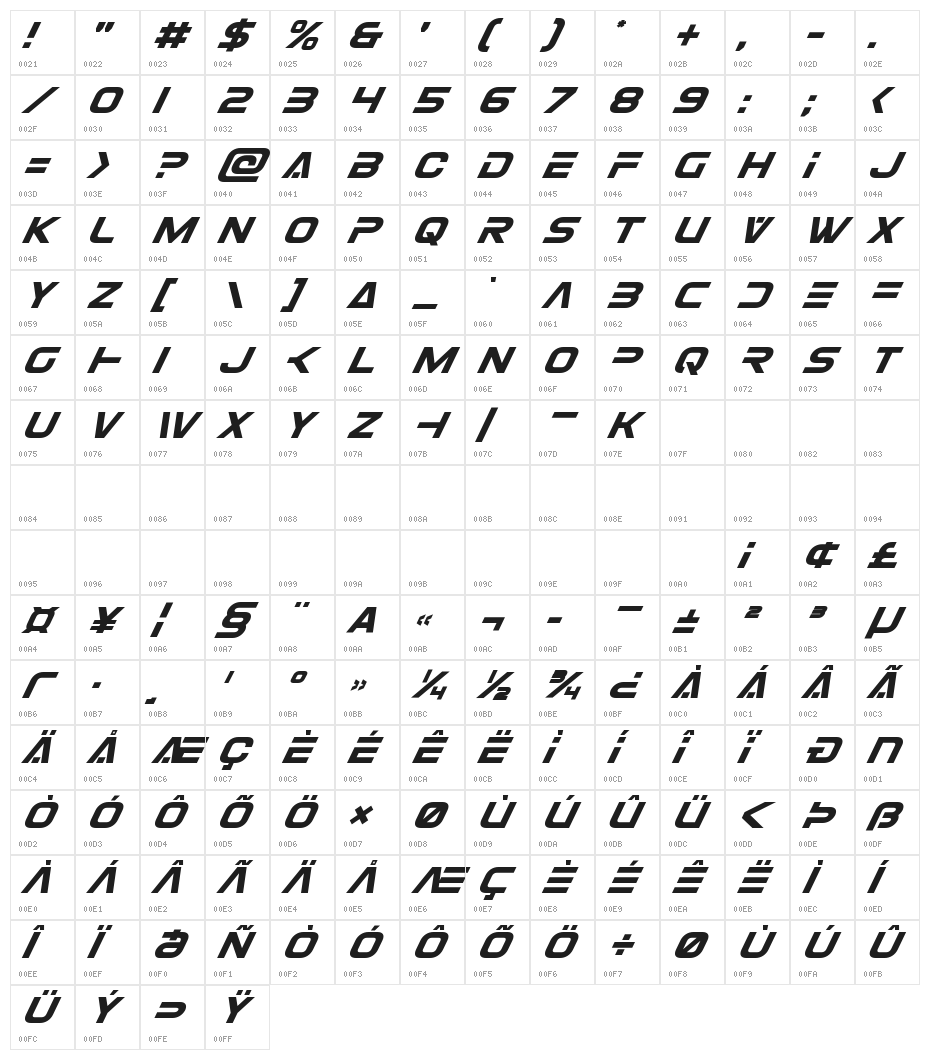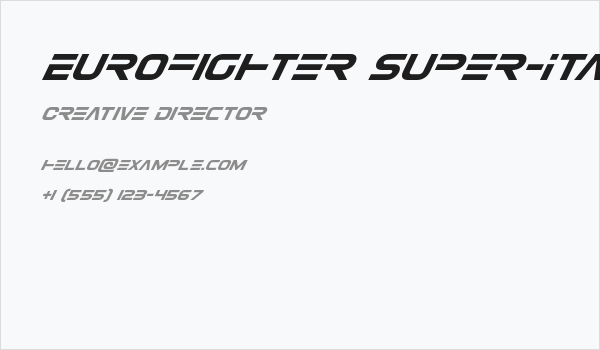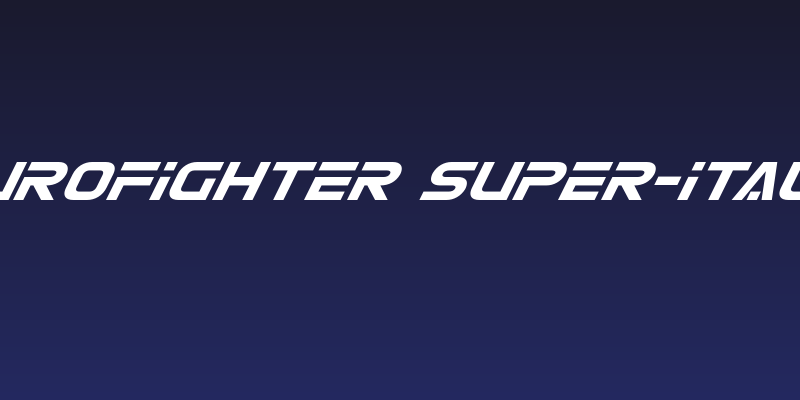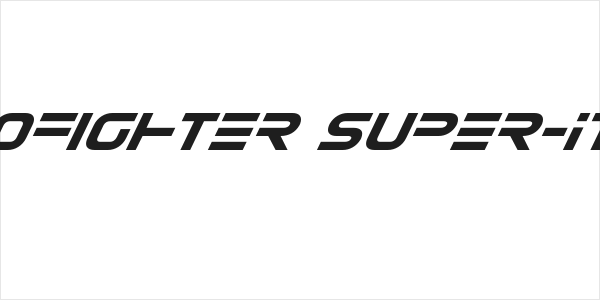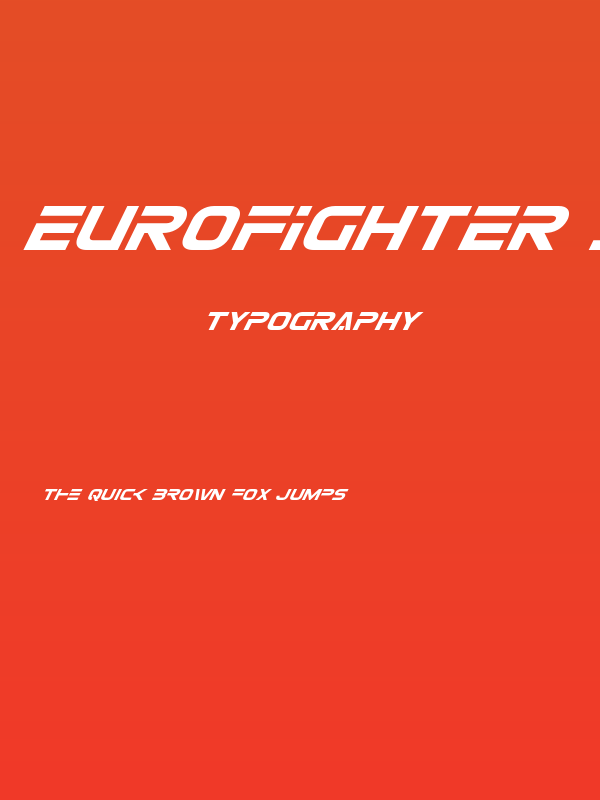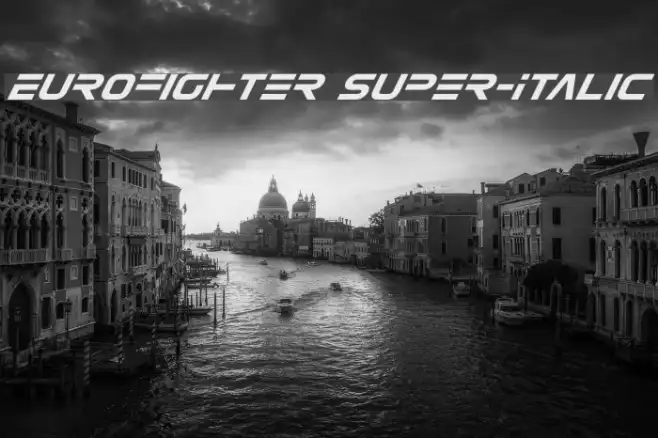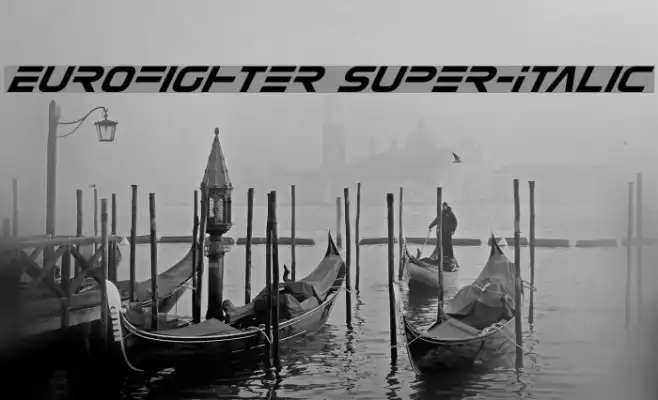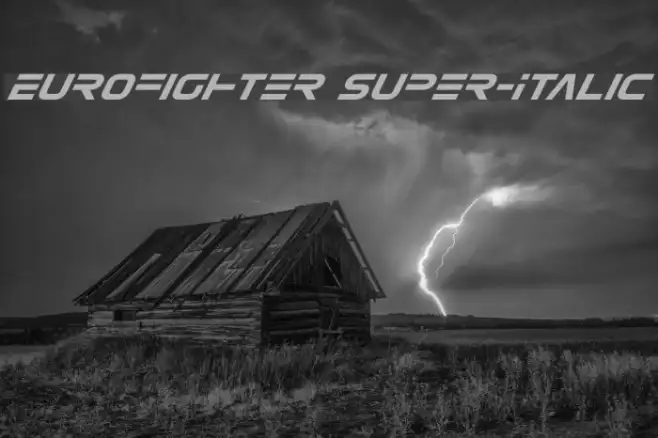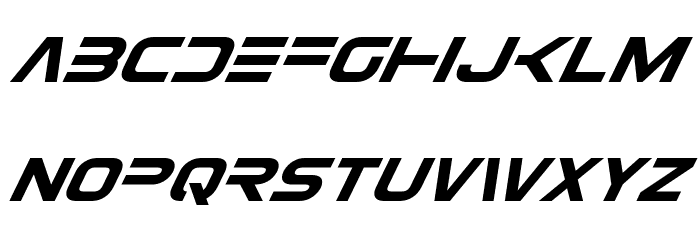
Eurofighter Super-Italic Font
Eurofighter Super-Italic Description
This font exhibits a sleek, modern design with a strong italic slant, giving it a dynamic and forward-moving appearance. The characters are bold and angular, with sharp edges and a futuristic aesthetic. The uppercase and lowercase letters maintain a consistent style, with a distinct emphasis on diagonal lines and geometric shapes. The numerals are equally bold, complementing the overall design with their streamlined form. Special characters are crafted with the same attention to detail, ensuring a cohesive look across all glyphs. This font is ideal for projects that require a sense of speed and modernity.
| Proposed Projects | Ideal for branding, sports team logos, automotive designs, and technology-related projects. |